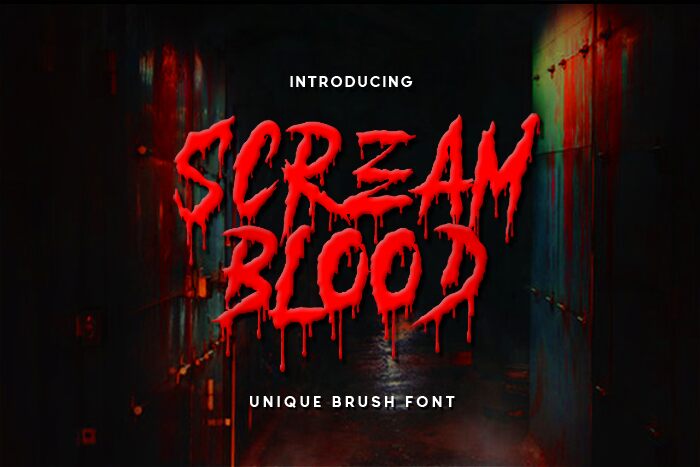
Scream Blood font by glottastudio is a display font dripping with horror and unsettling mood. Thin and thick in all the right places, it delivers an intense look that’s perfect for a frightening atmosphere. The fluid design almost resembles disturbing blood drops, cutting into viewers’ emotions. Design thrilling projects that are visually full of surprises with this scary typeface.
No project is too unusual for this free display font to handle when you go to use it for artistic purposes. Custom illustrations and hand-drawn posters can be completed on Halloween and themed events using the typeface. Don’t limit yourself to tattoos, banners, magazines, web designs or branding when thinking of new ideas this tool can be used in!